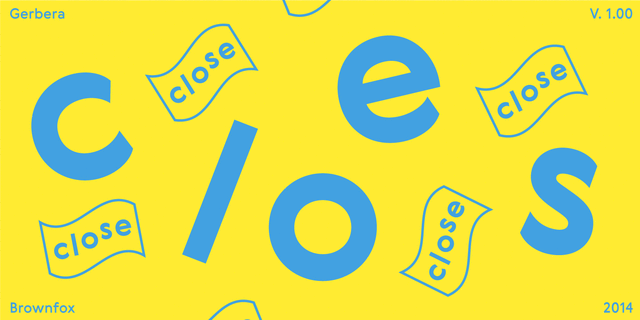
Gerbera (5 fonts)
About GerberaGerbera is a new sans-serif with a distinct personality that fuses geometric and organic elements. It is at once hip and quaint, clear yet idiosyncratic, restrained but sensual. Its deliberately varied classical capital proportions and geometric structure are balanced by slightly reversed stress and pinched terminals on curved strokes. This versatile font comes in five weights and offers a variety of Open Type features, including small caps, alternate characters and punctuation, five sets of figures, and CE, Baltic, and Cyrillic support. The typeface was designed by Gayane Bagdasaryan and Vyacheslav Kirilenko and released in Brownfox foundry in 2014.